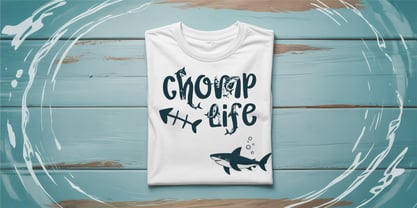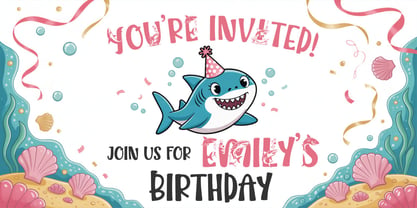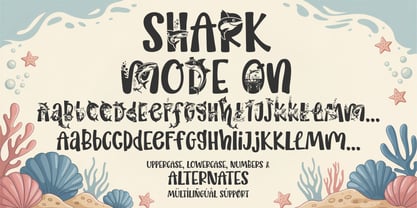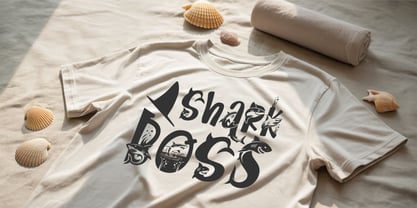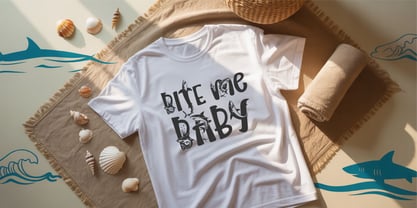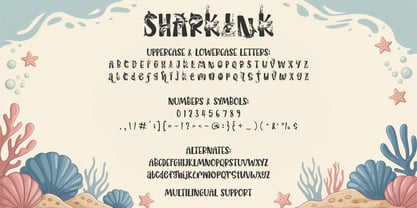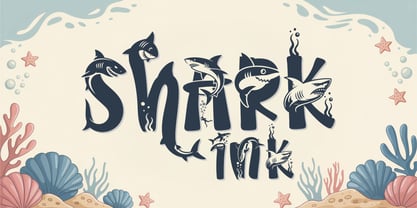
Sharkink
Die Schriftfamilie Sharkink wurde von Tony Balios entworfen und von Tonis Art Studio veröffentlicht. Sharkink enthält 1 Stile. Mehr über diese Familie
SharkInk is a bold and playful nautical display typeface that makes a splash in every design. Each letter is brought to life with dynamic shark silhouettes and underwater elements, creating a fun and energetic look perfect for ocean-inspired designs.
The letterforms are chunky, legible, and full of personality — ideal for display use while maintaining clarity across a wide range of applications. It includes uppercase and lowercase characters, punctuation, alternates, and multilingual support to give your designs creative flexibility.
Perfect for:
Kids’ apparel, beach party invitations, summer-themed branding, classroom posters, playful packaging, and educational materials.
Designer: Tony Balios
Foundry: Tonis Art Studio